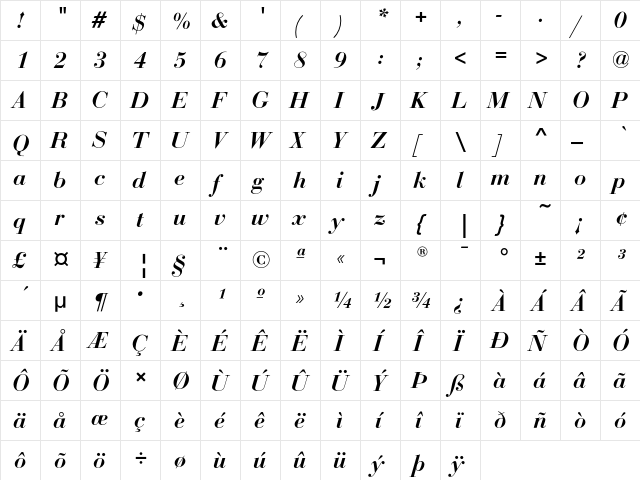
BauerBodoniEF MediumItalic
BauerBodoniEF offers clean, dependable letterforms without strong stylistic allegiance, making it a practical choice for designers who need flexibility. Its italic angle brings a sense of urgency and motion to the letterforms.
Pro Tip: Try BauerBodoniEF for annotation and caption copy alongside an upright companion — the contrast in angle creates a dynamic but ordered typographic system.